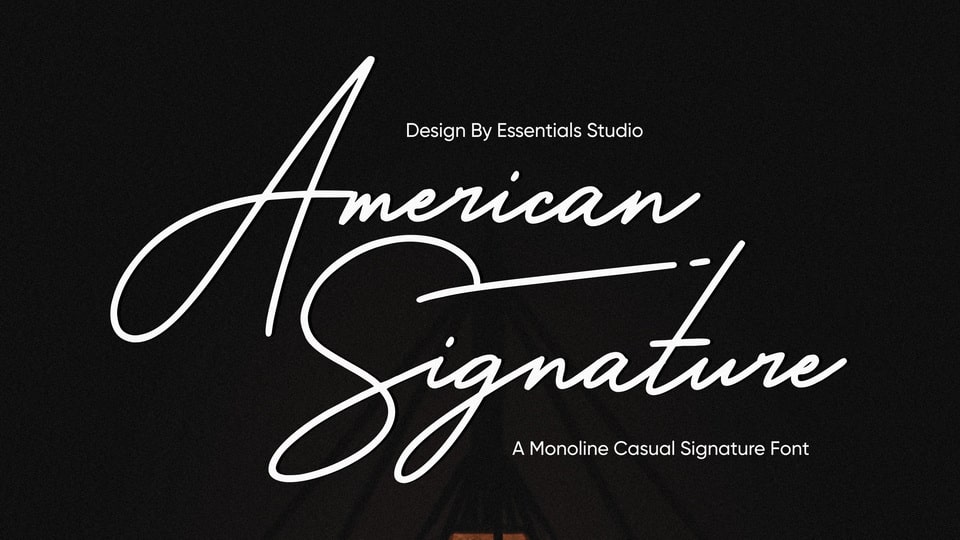
Download American Signature font, a monoline signature typeface with an elegant flow. American Signature is perfect for product packaging, branding project, magazine, social media, wedding, or just used to express words above the background.